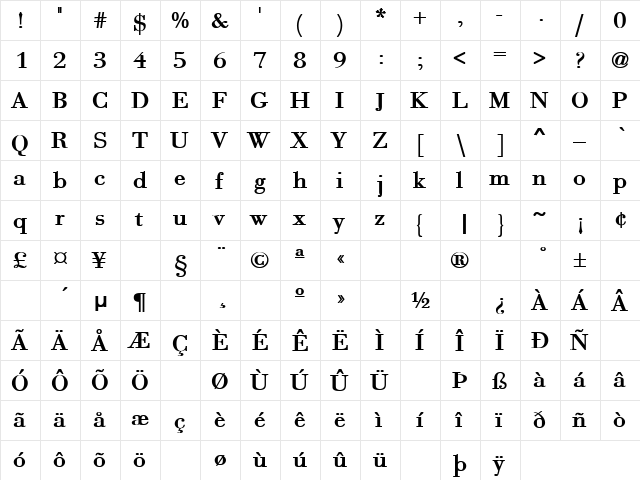
Bodoni2 Bold
Design Context for Bodoni2 Typeface
Bodoni2 offers clean, dependable letterforms without strong stylistic allegiance, making it a practical choice for designers who need flexibility. Its bold stroke weight gives it real presence on the page.
Pro Tip: Pair Bodoni2 with a font of contrasting weight or personality to build a more expressive typographic hierarchy.